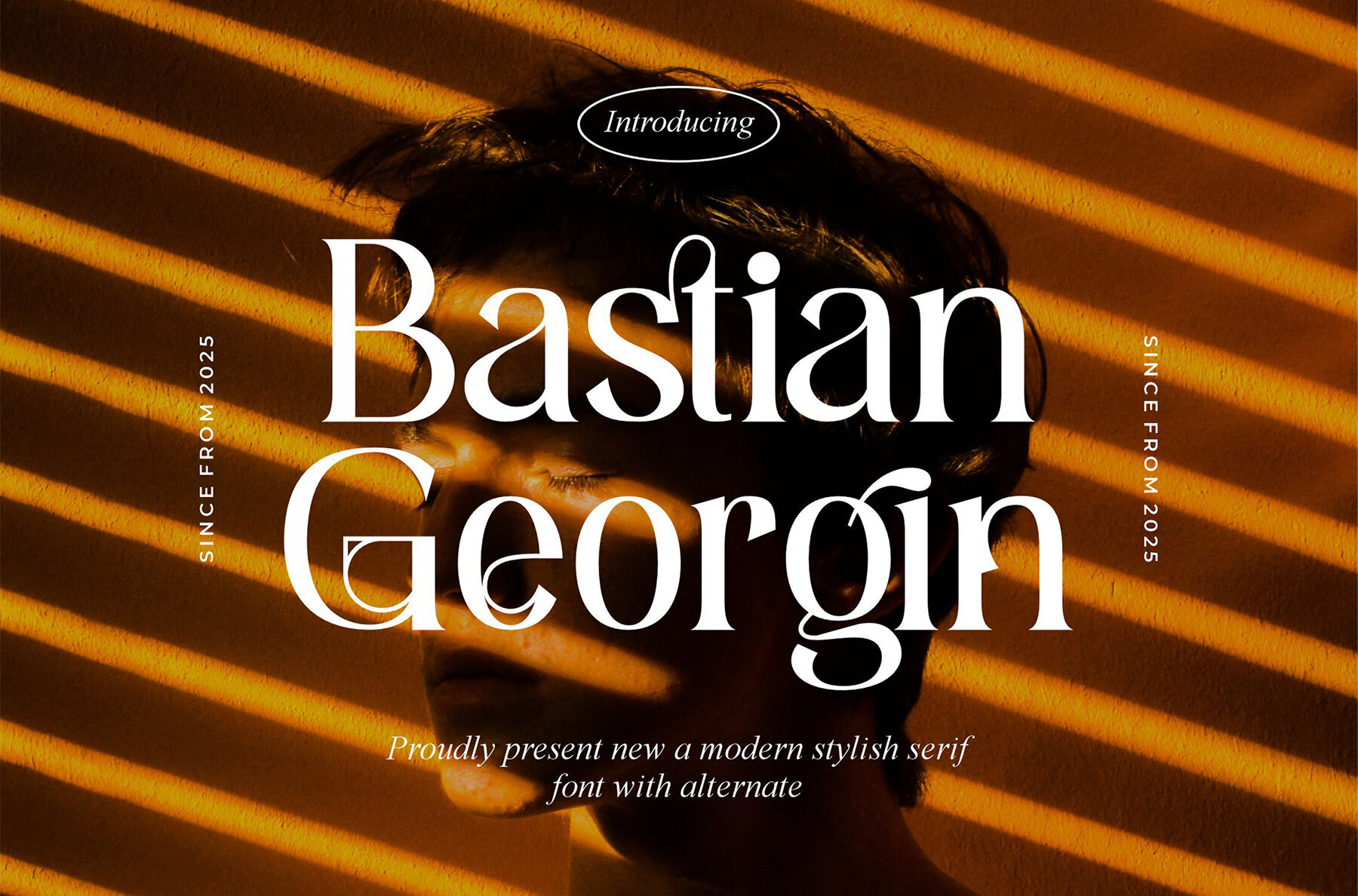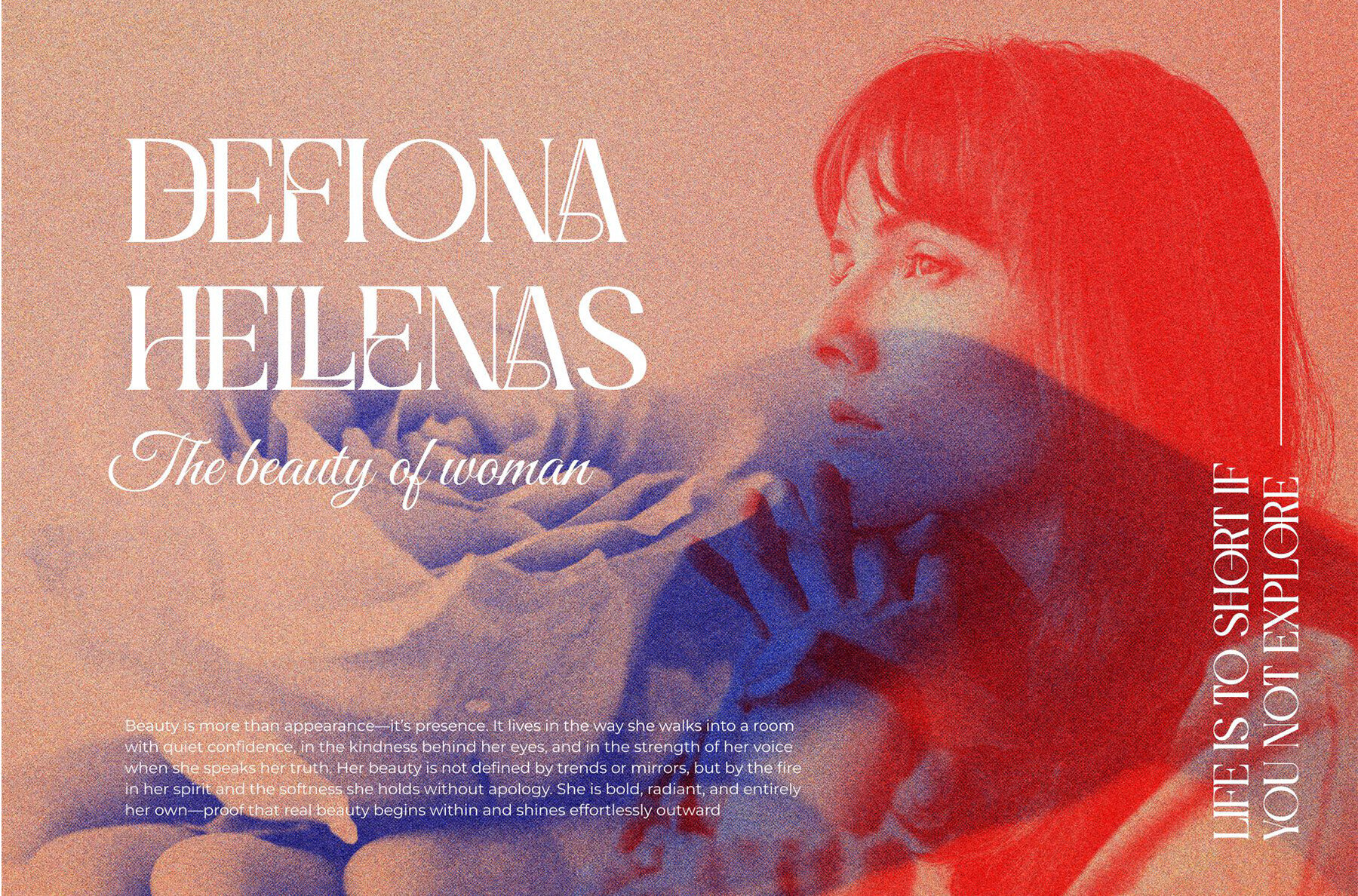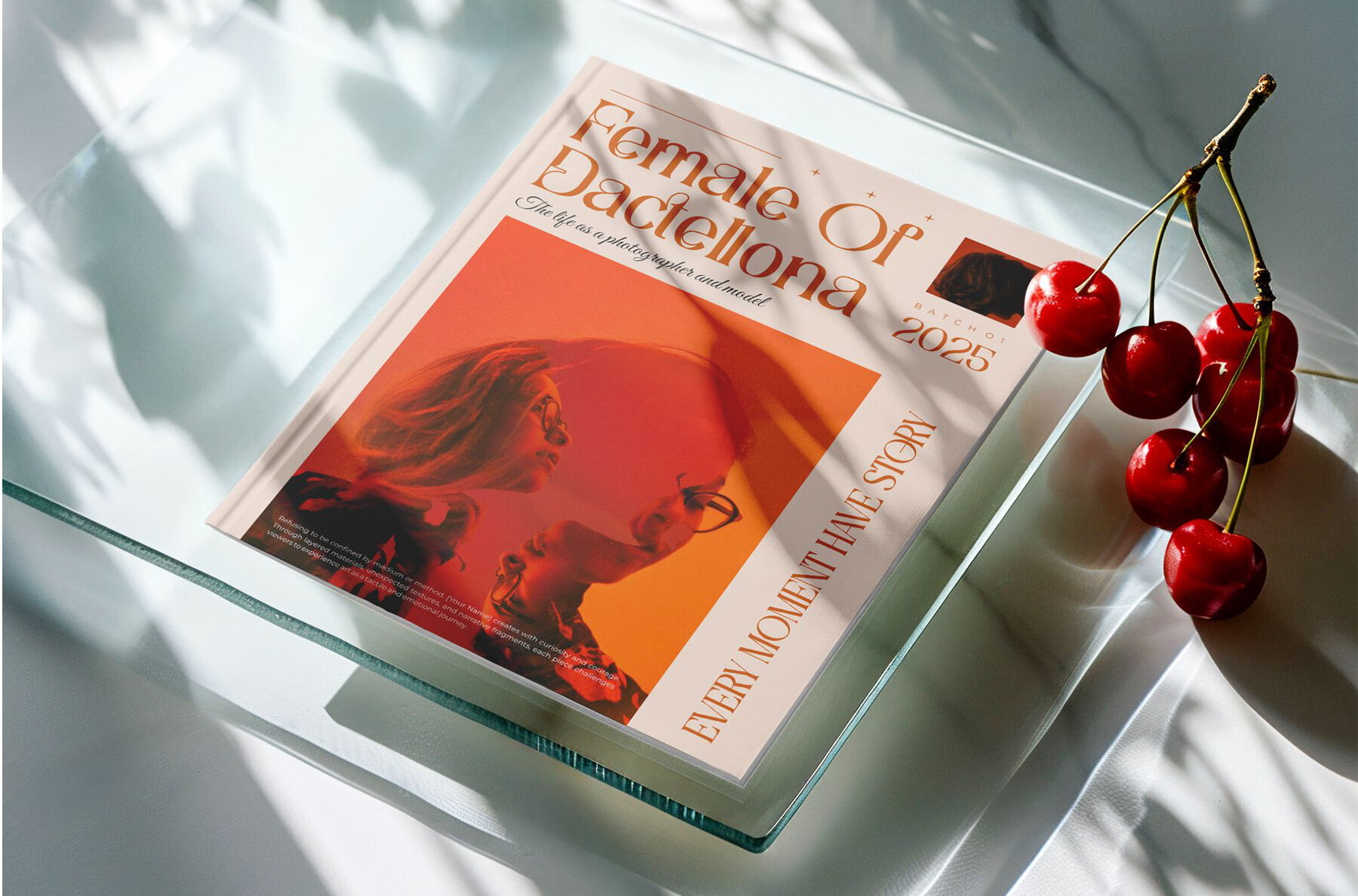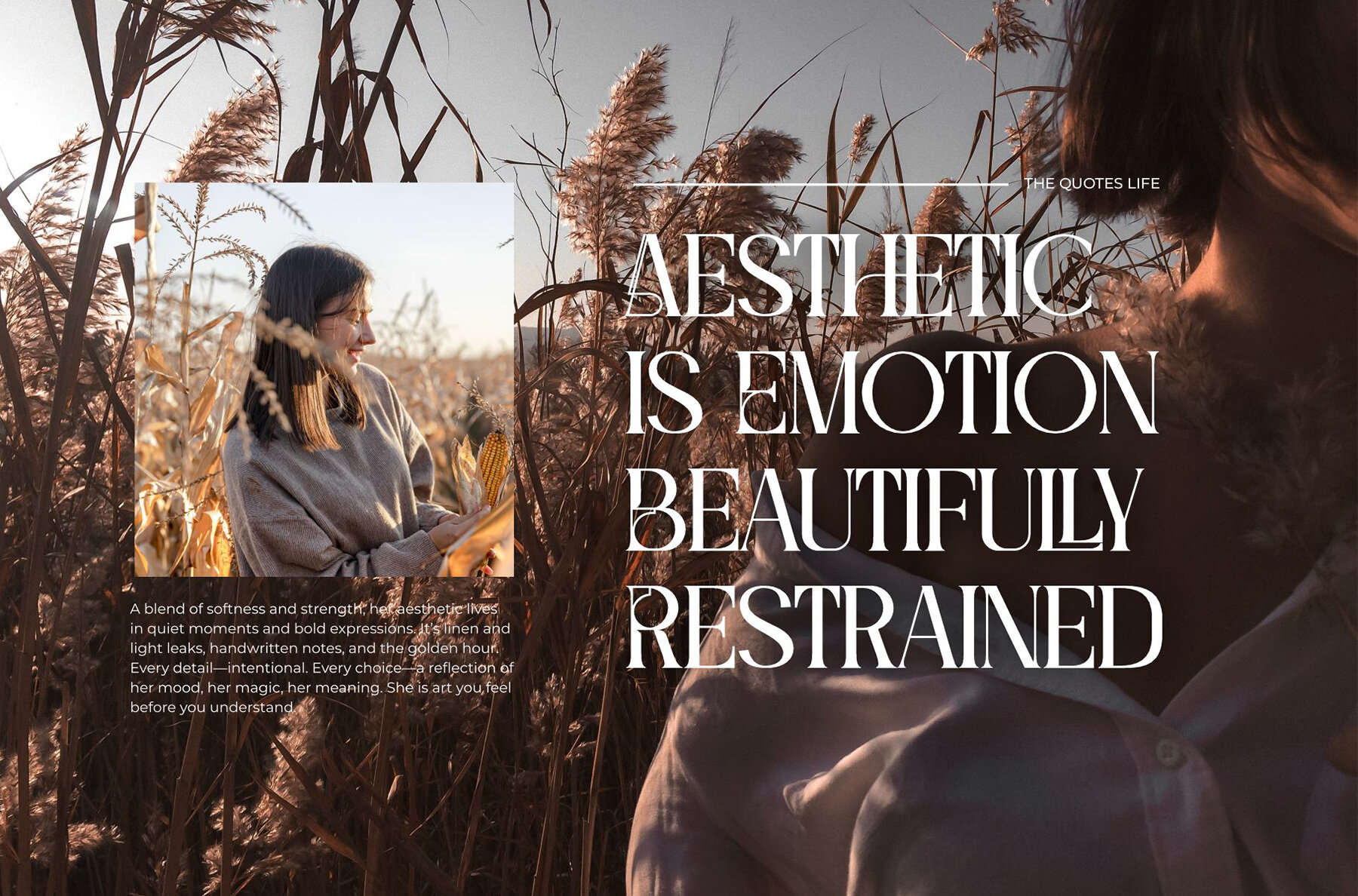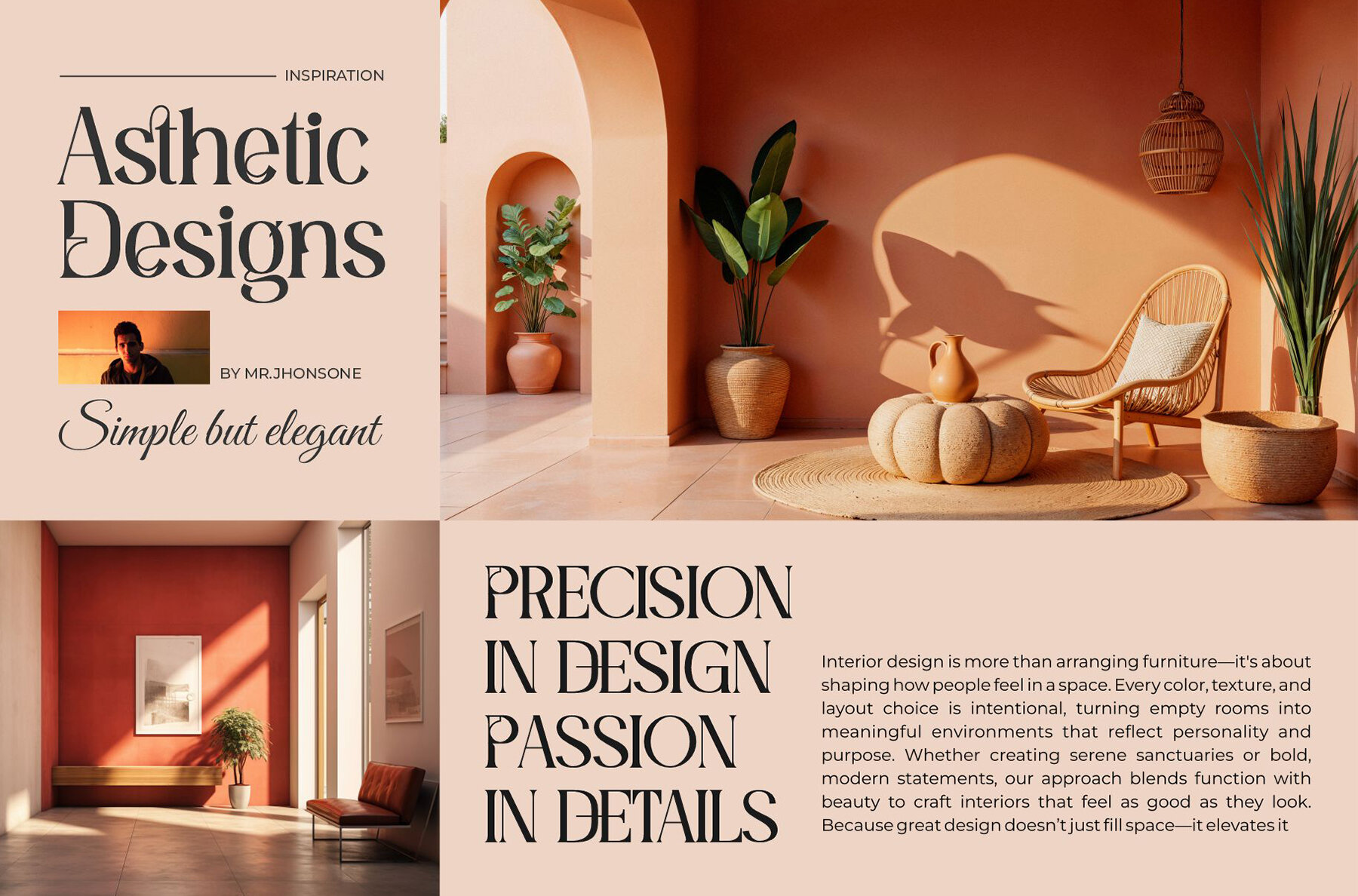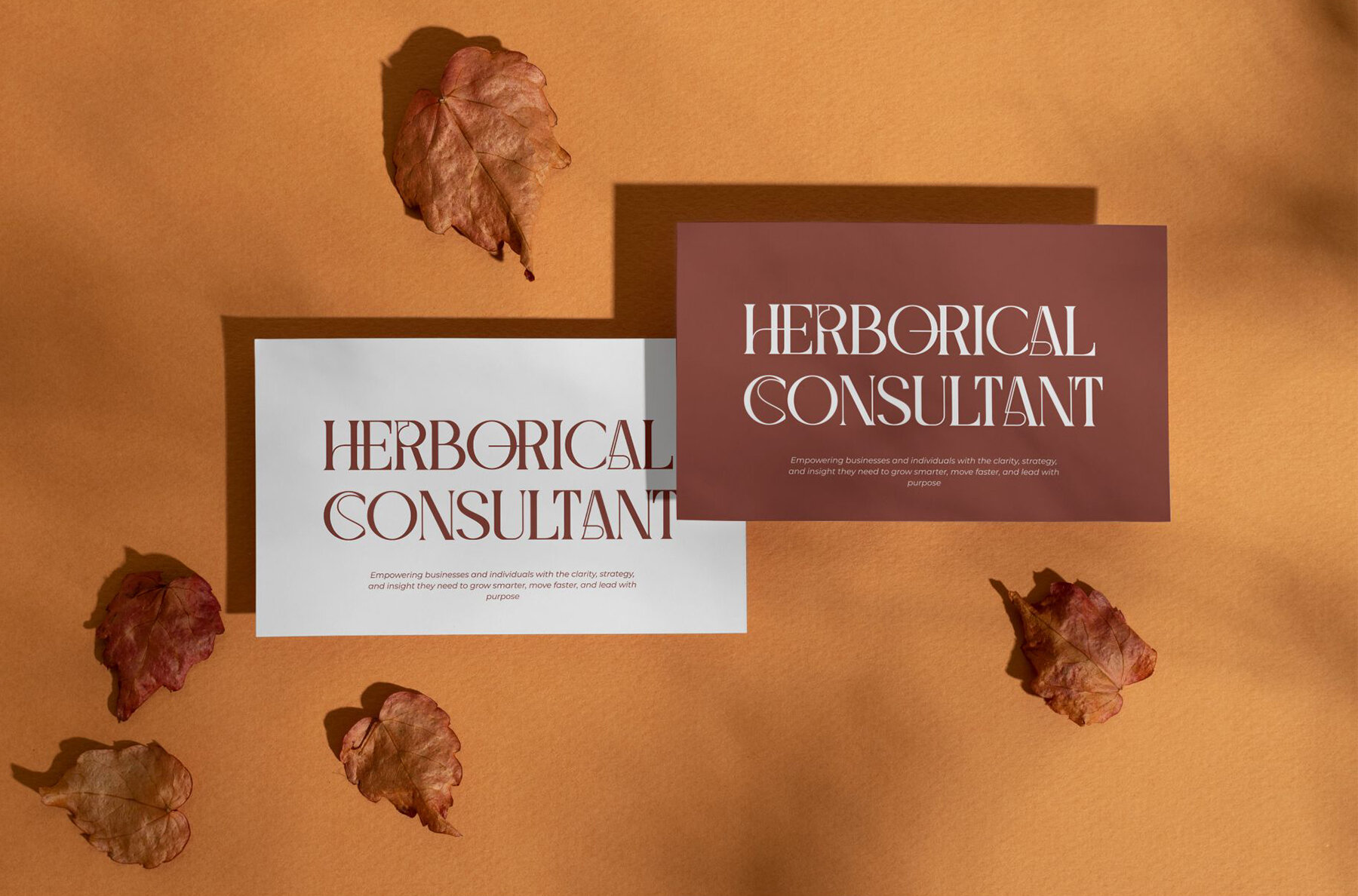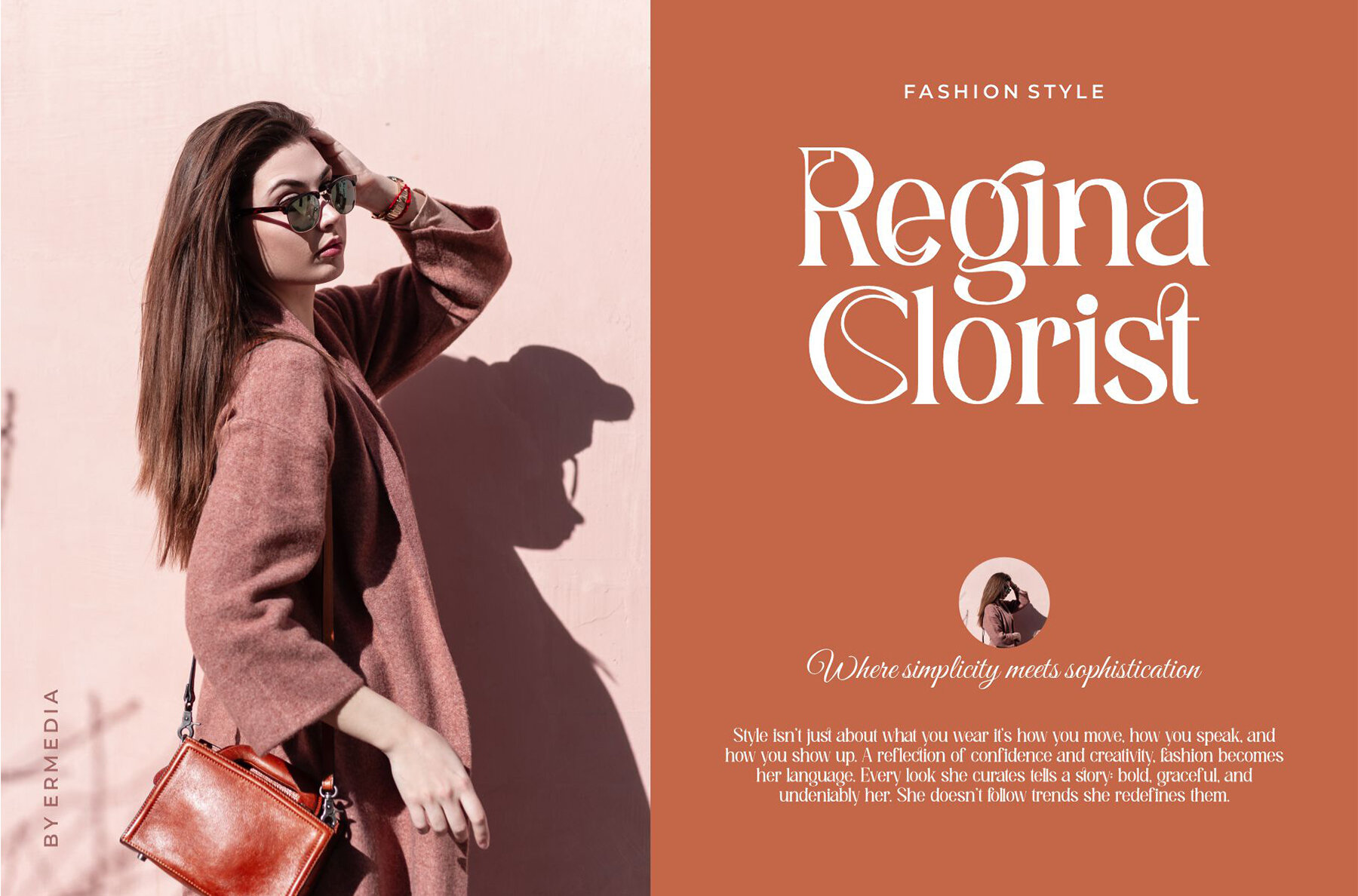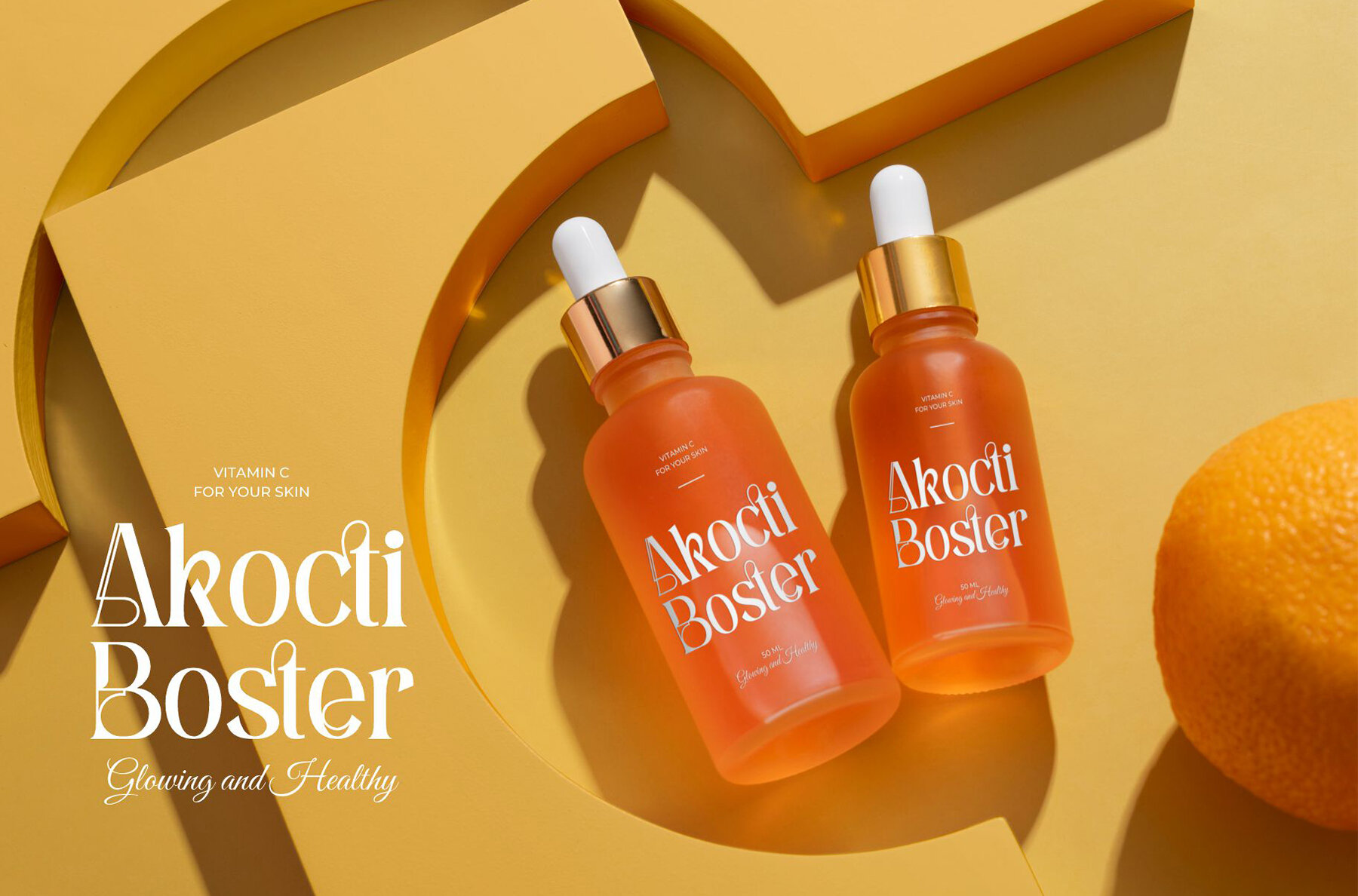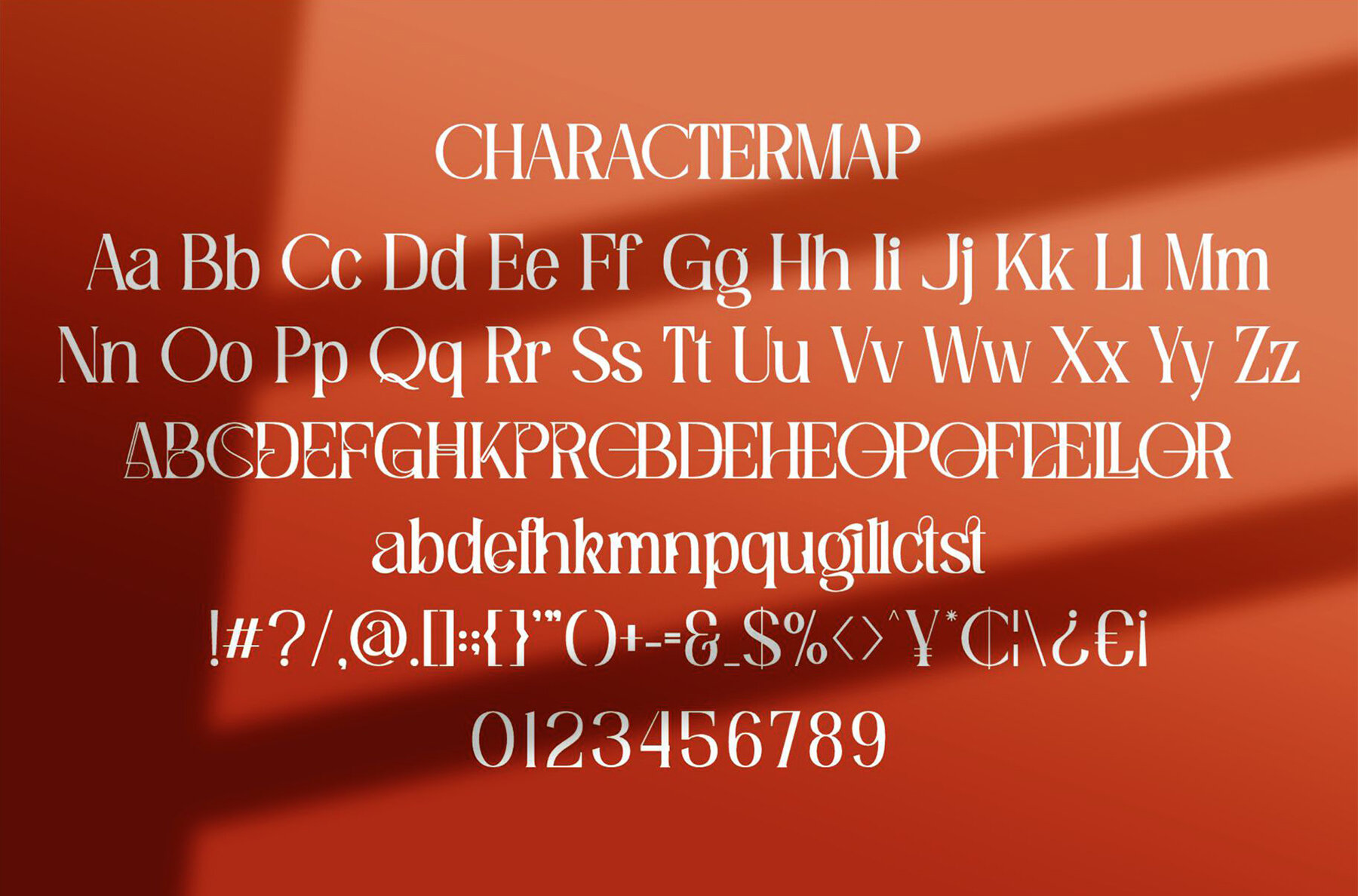
Bastian Georgin Font
Bastian Georgin
Discover the elegance of Bastian Georgin, a sophisticated modern serif font that exudes style and trendiness. Its distinctive character makes it an ideal choice for a variety of design projects, from crafting invitation cards to creating impactful company logos. Whether you're designing movie titles, business cards, book titles, or brand names, Bastian Georgin offers the versatility and grace that make your designs stand out.Bastian Georgin: A Modern Serif Delight